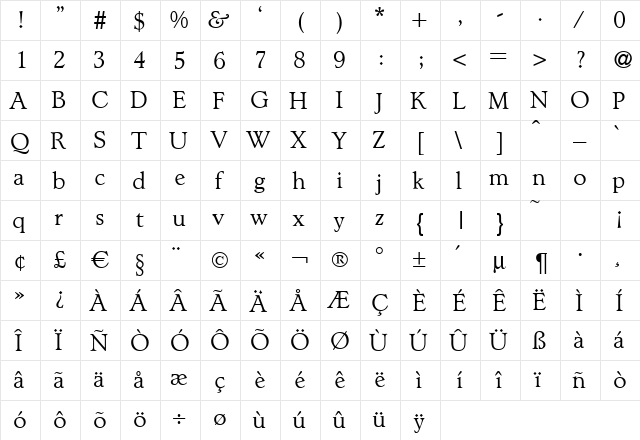
L890-Roman Regular
Design Context for L890-Roman Typeface
L890-Roman offers clean, dependable letterforms without strong stylistic allegiance, making it a practical choice for designers who need flexibility.